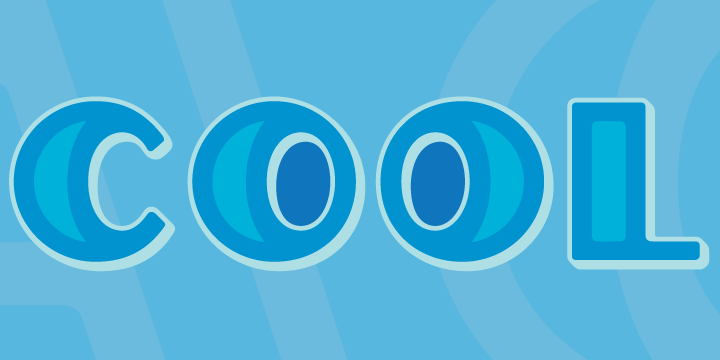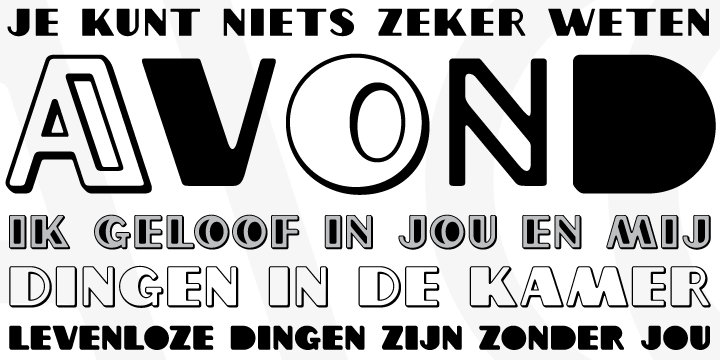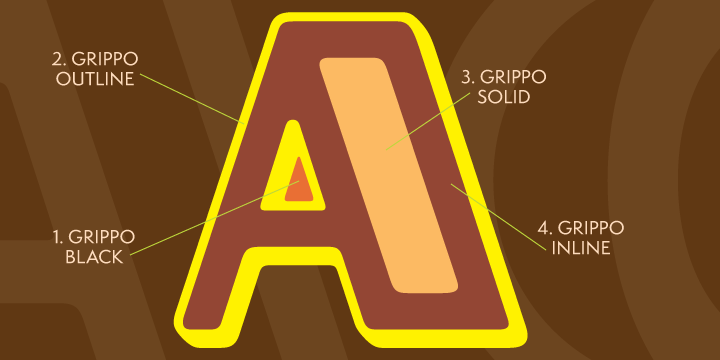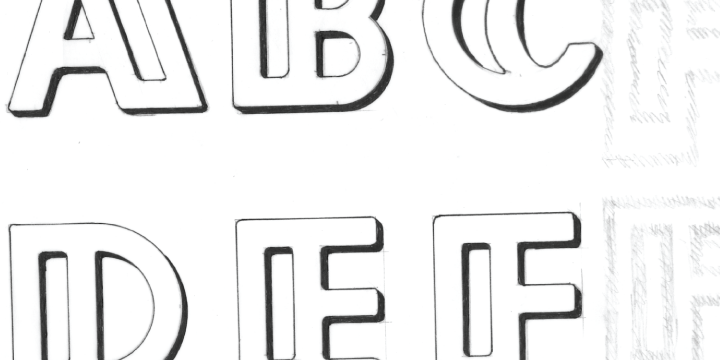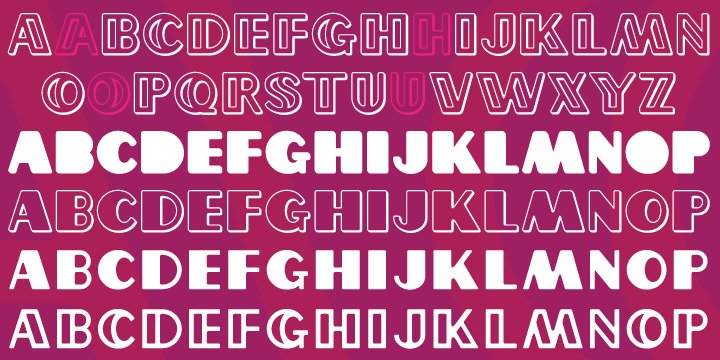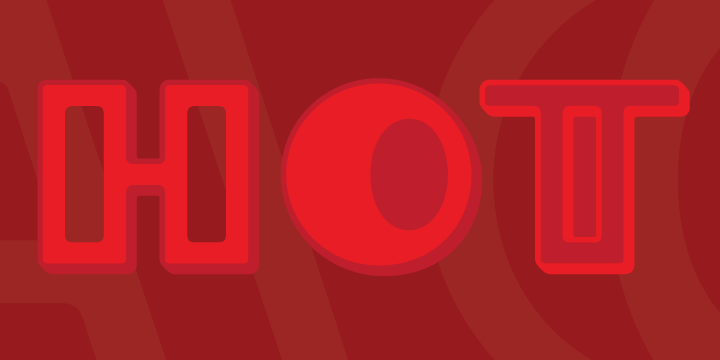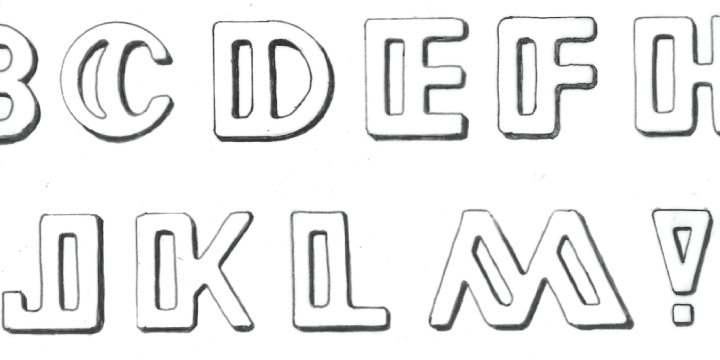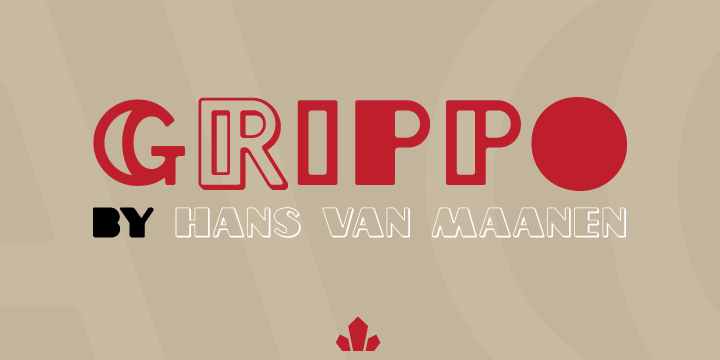
Grippo is a art deco font family. This typeface has five styles and was published by Canada Type.
The first Grippo sketches were done in the 1980s, but only now does it see the light of day as a complete series of interchangeable, layerable fonts. The original single-font concept was simple enough: Double the stems so they become sturdy handles. But then we elected to add more playfulness and versatility to the idea. By spearating the main idea’s layers and producing them as individual fonts, layerability is achieved, and endless possibilities of play and variation arise.